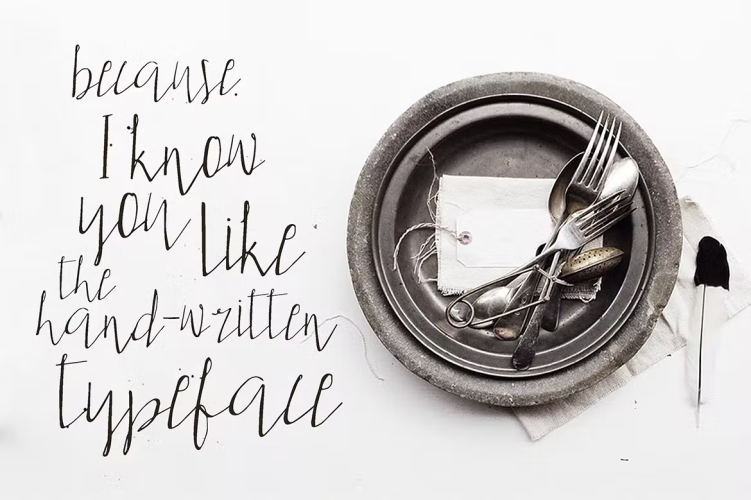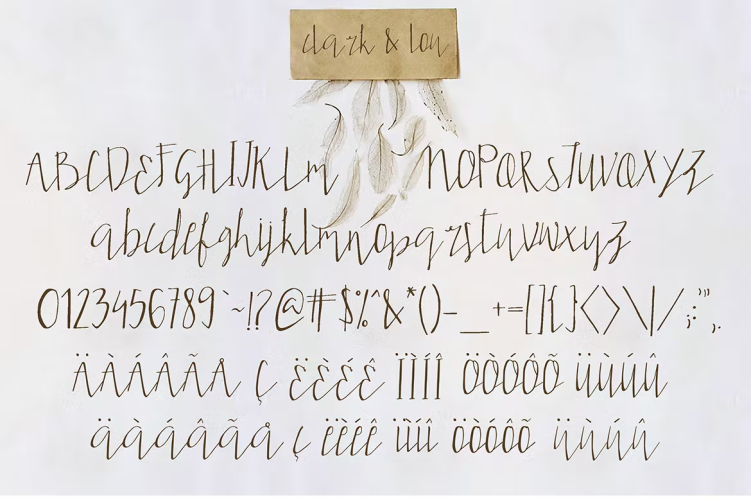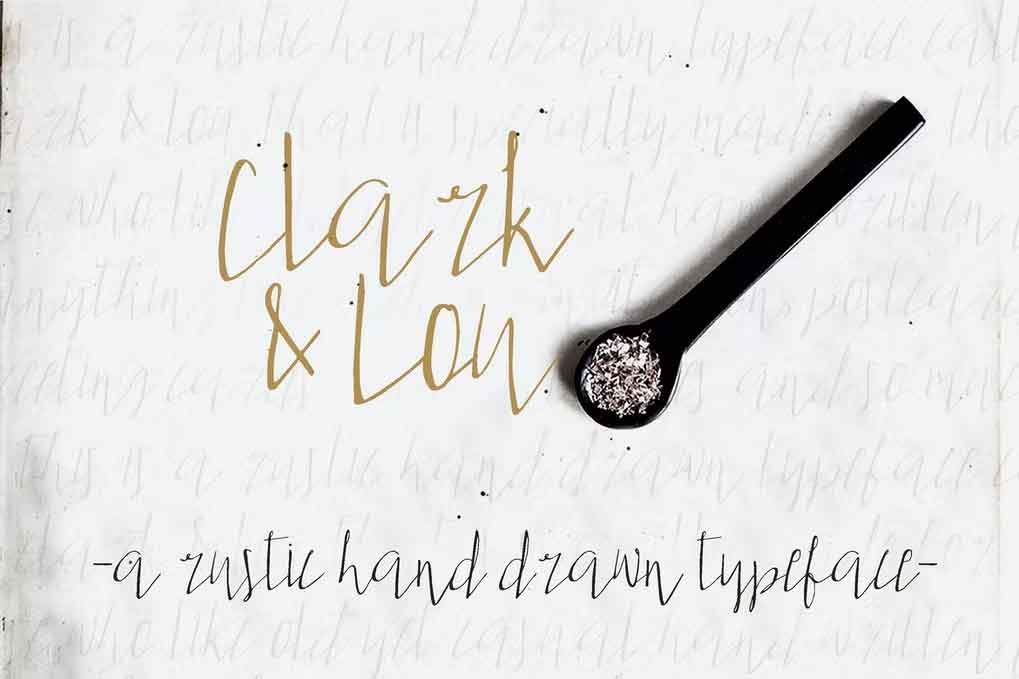
Clark & Lou Font
Clark & Lou is a rustic, feminine hand writing typeface that you can use for special occasion: greeting card, wedding invitation, letter, label, tag and other design wor…
Clark & Lou is a rustic, feminine hand writing typeface that you can use for special occasion: greeting card, wedding invitation, letter, label, tag and other design work. You decide!
Where Clark & Lou Font works best
Clark & Lou Font brings a personal, handwritten warmth to invitations, menus and place cards.
Craft brands — coffee, cosmetics, bakery — use scripts like Clark & Lou Font for signature-style logos and labels.
Pair Clark & Lou Font with a plain sans for quotes, stories and Pinterest pins that feel handmade.
What is Clark & Lou Font good for?
Clark & Lou Font is a Script And Handwritten typeface tagged Packaging, Script, Wedding. It works well for headlines, logos, posters, social media graphics and branding projects that need a distinctive script and handwritten look.